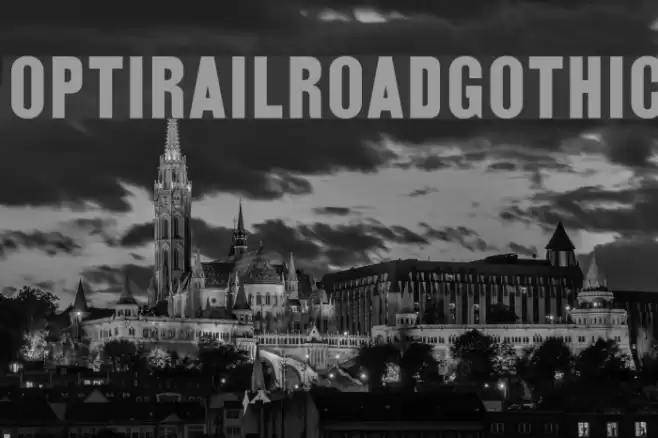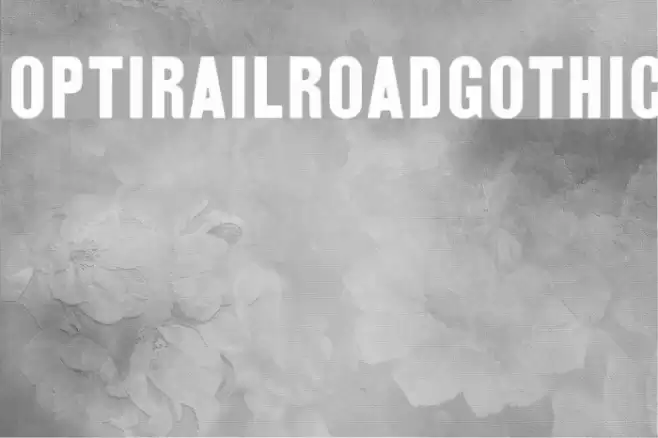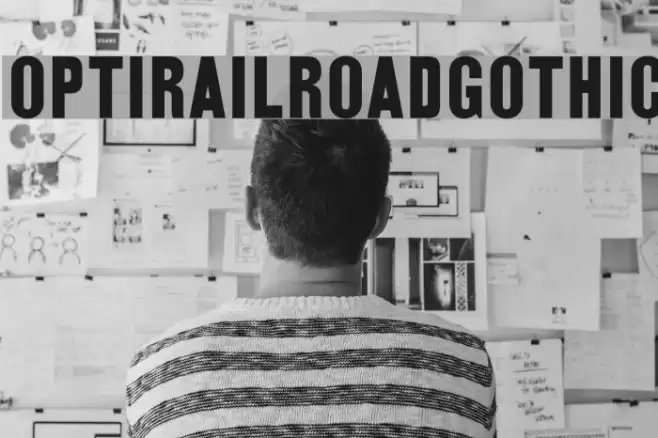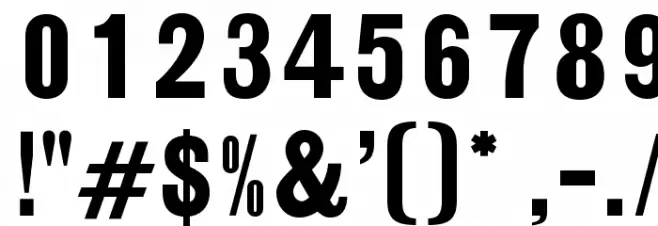
OPTIRailroadGothic Font
OPTIRailroadGothic Description
This font features bold, uppercase letters with a strong, industrial aesthetic. The characters are uniformly thick, conveying a sense of strength and stability. The design is clean and straightforward, with minimal embellishments, making it highly legible even from a distance. The numbers and special characters maintain the same boldness and clarity, ensuring consistency across all text elements. This font's robust appearance makes it suitable for impactful and attention-grabbing designs.
A bold, industrial-style font with strong, clean lines from Uncategorized fonts.
- Proposed Projects: Ideal for signage, posters, branding, and any project requiring a bold, impactful typeface.
- Overall Style: Industrial
- Use Case: Headlines, Logos, Signage